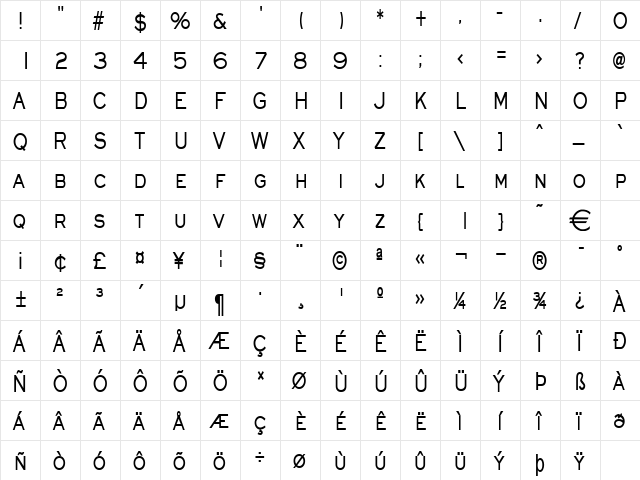
EyeglassThin Bold
Design Context for EyeglassThin Typeface
EyeglassThin takes a measured approach to typography — its balanced proportions and neutral character make it a reliable workhorse for both digital and print work. Its bold stroke weight gives it real presence on the page.